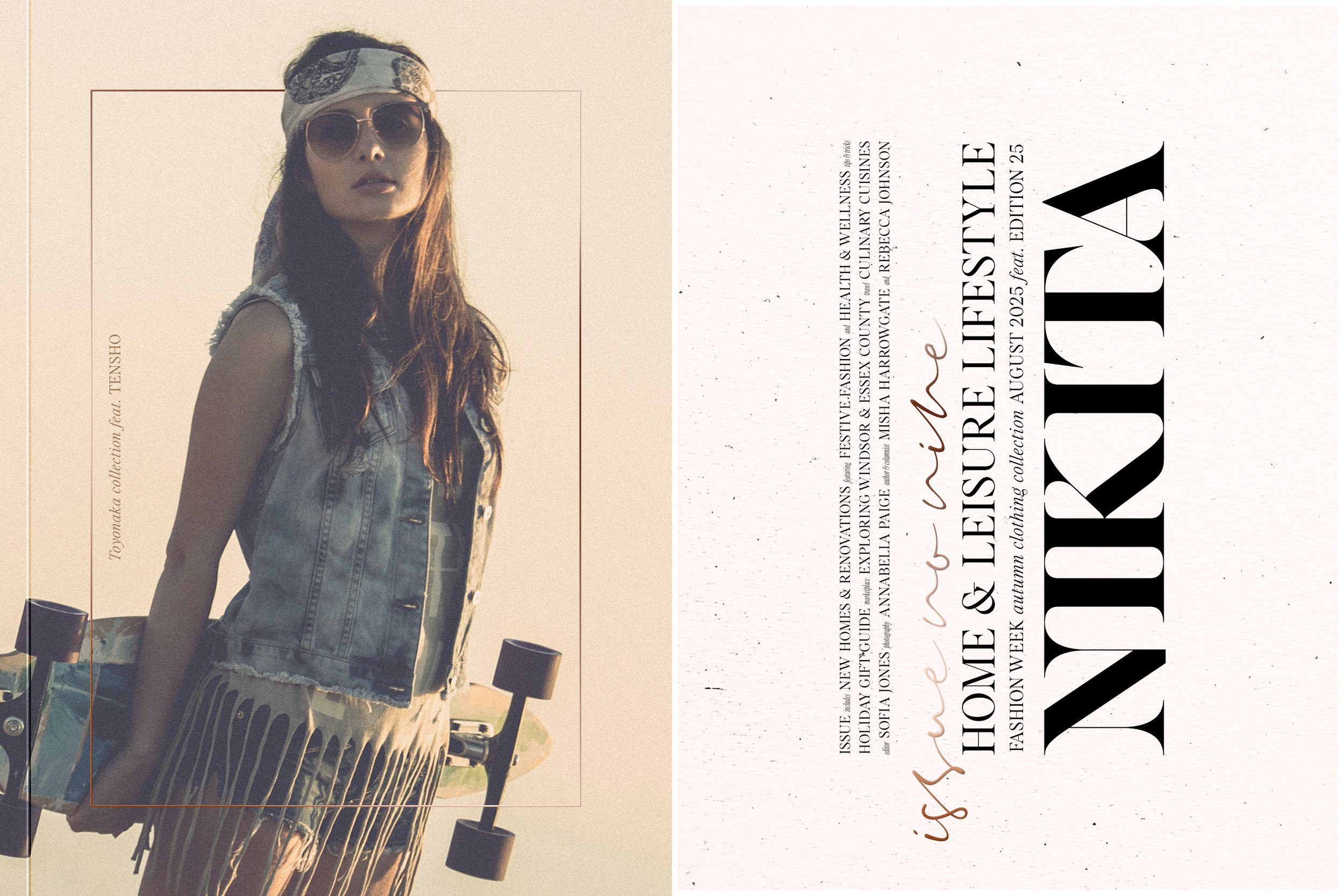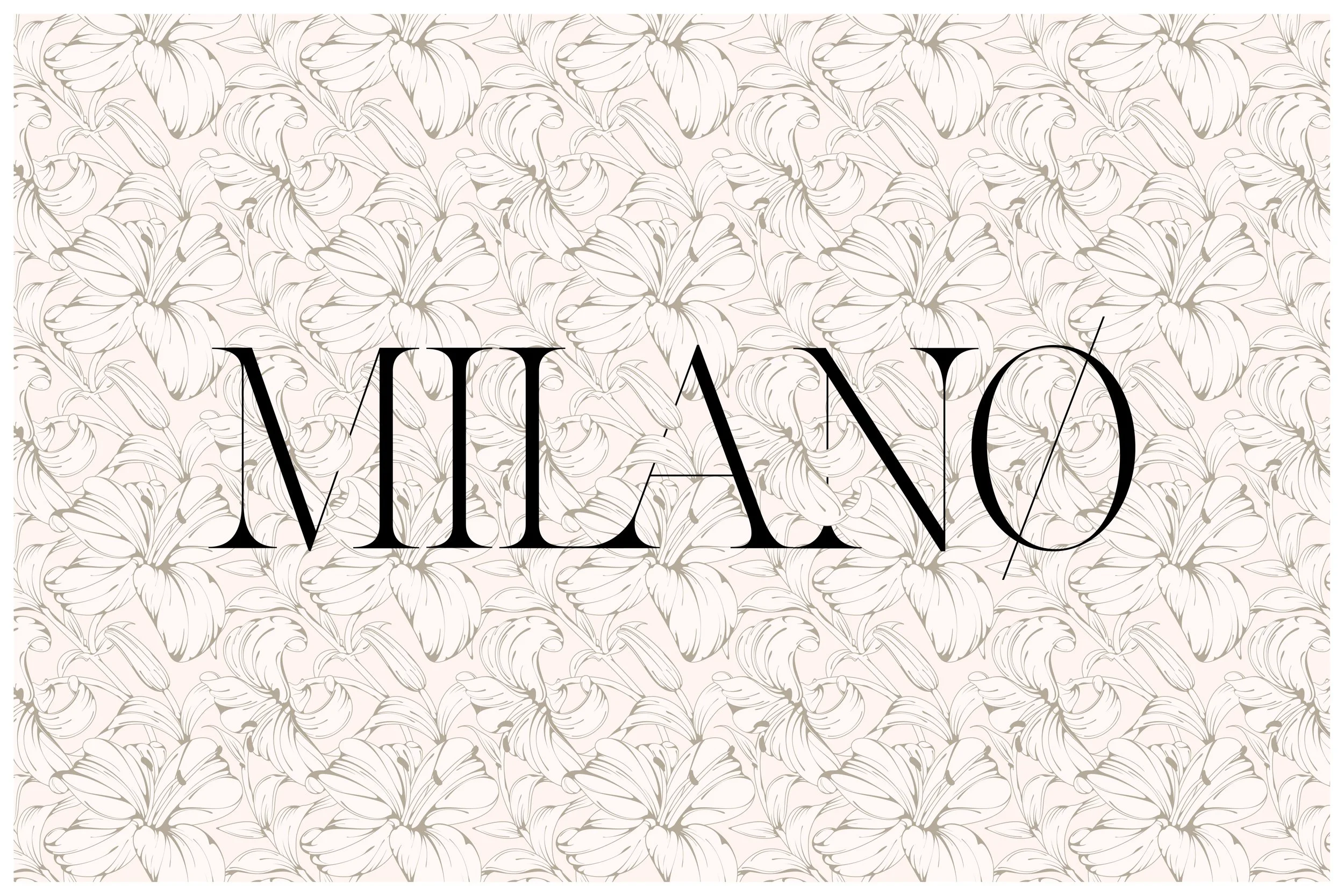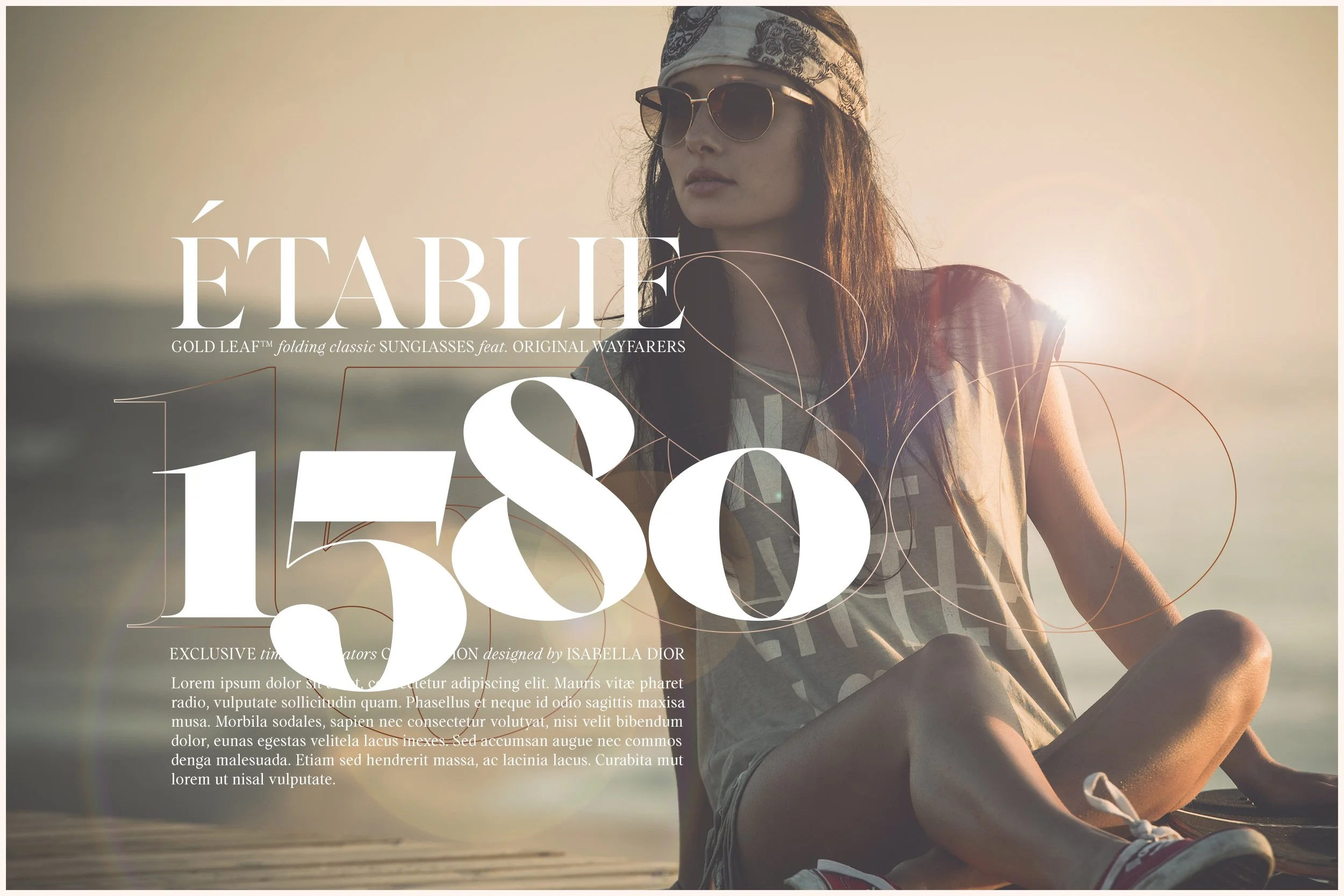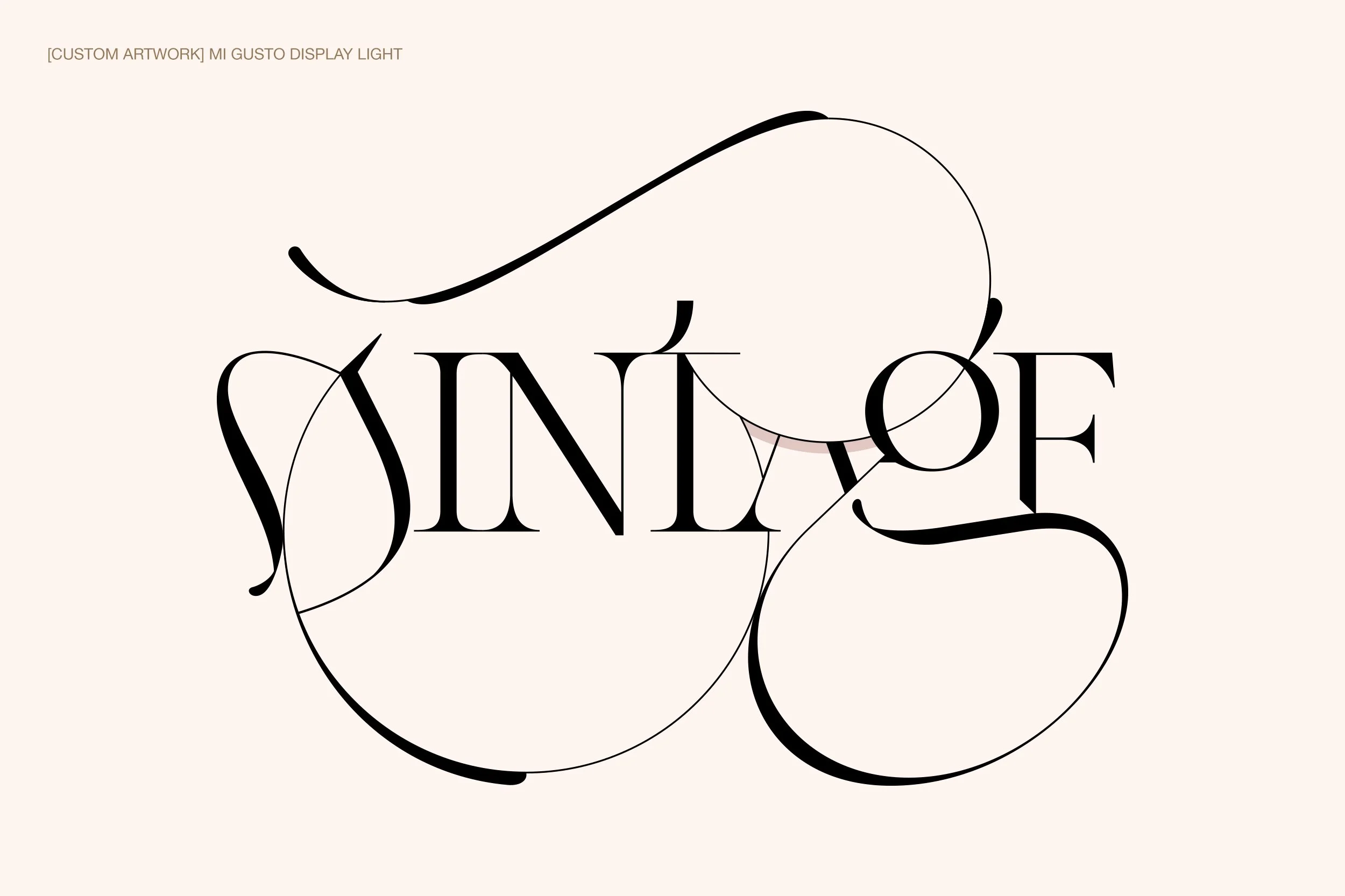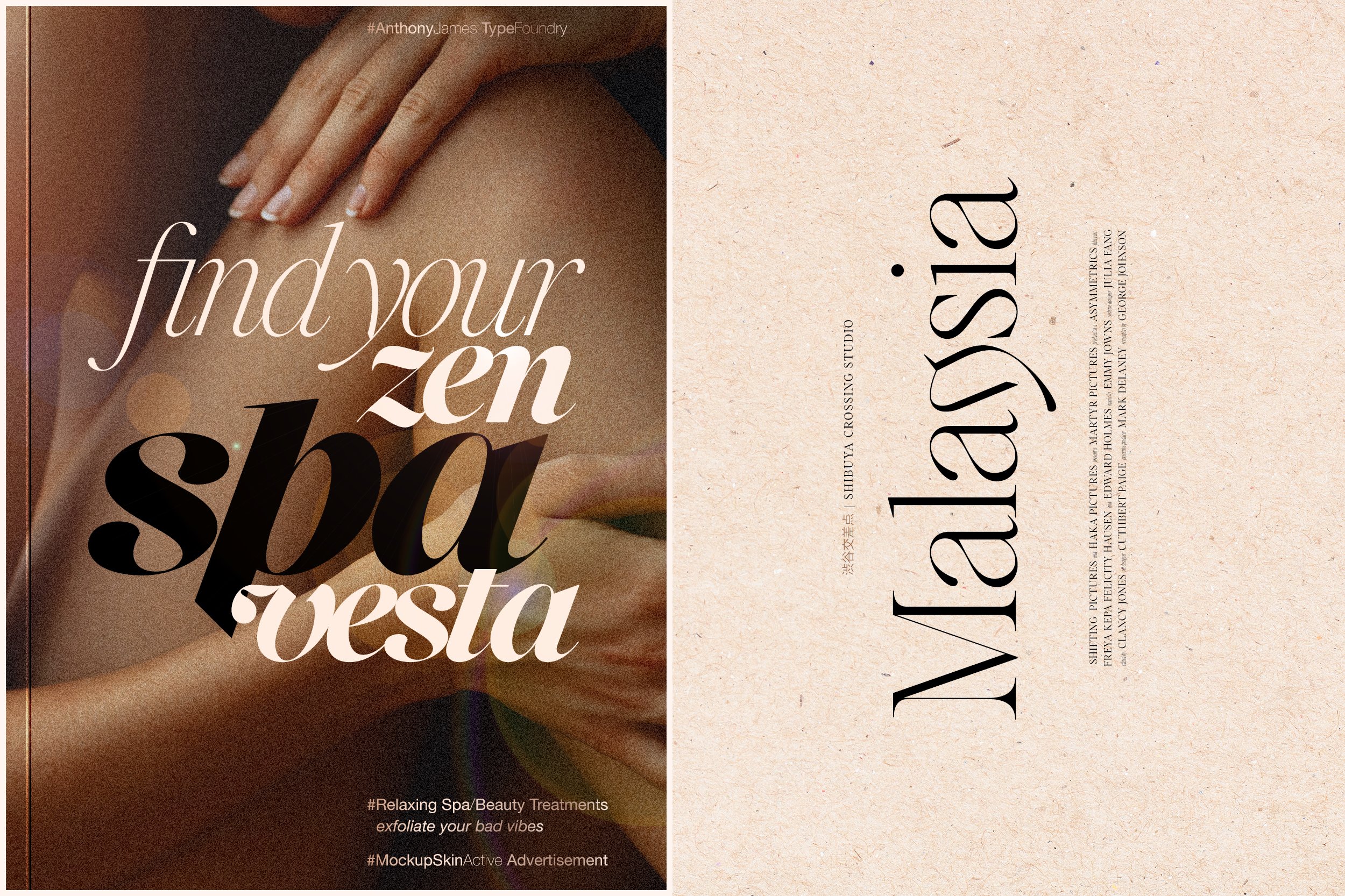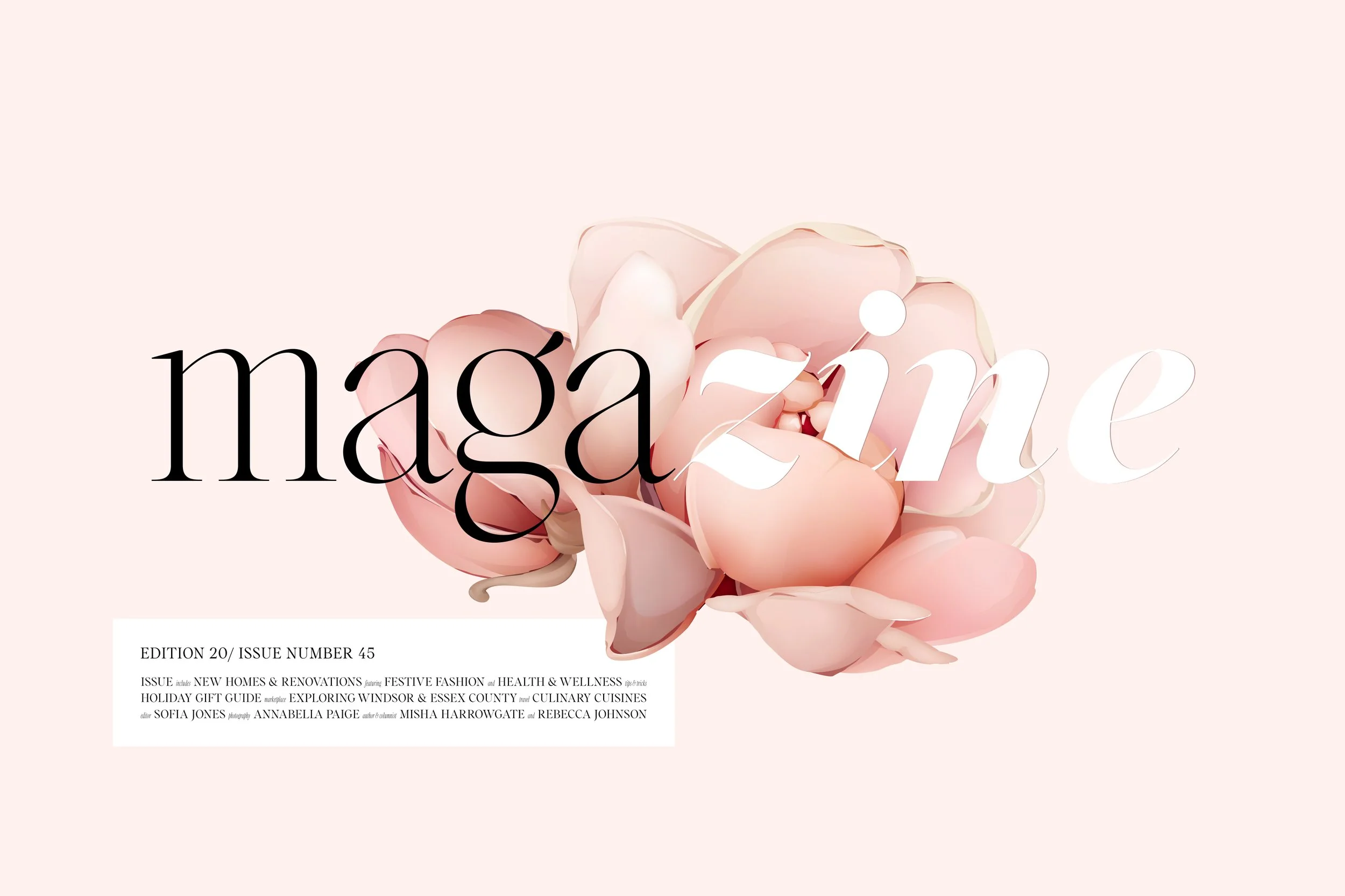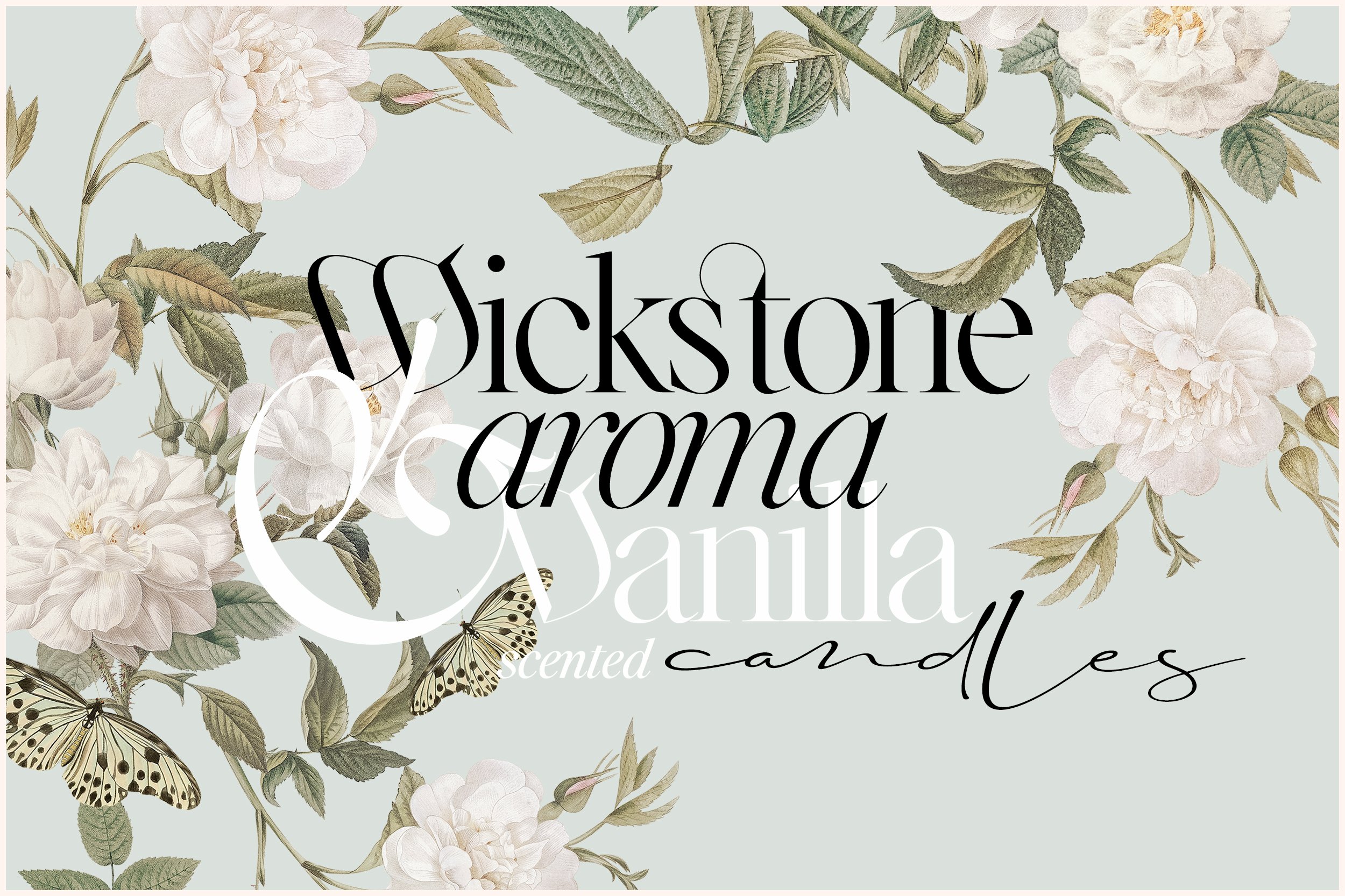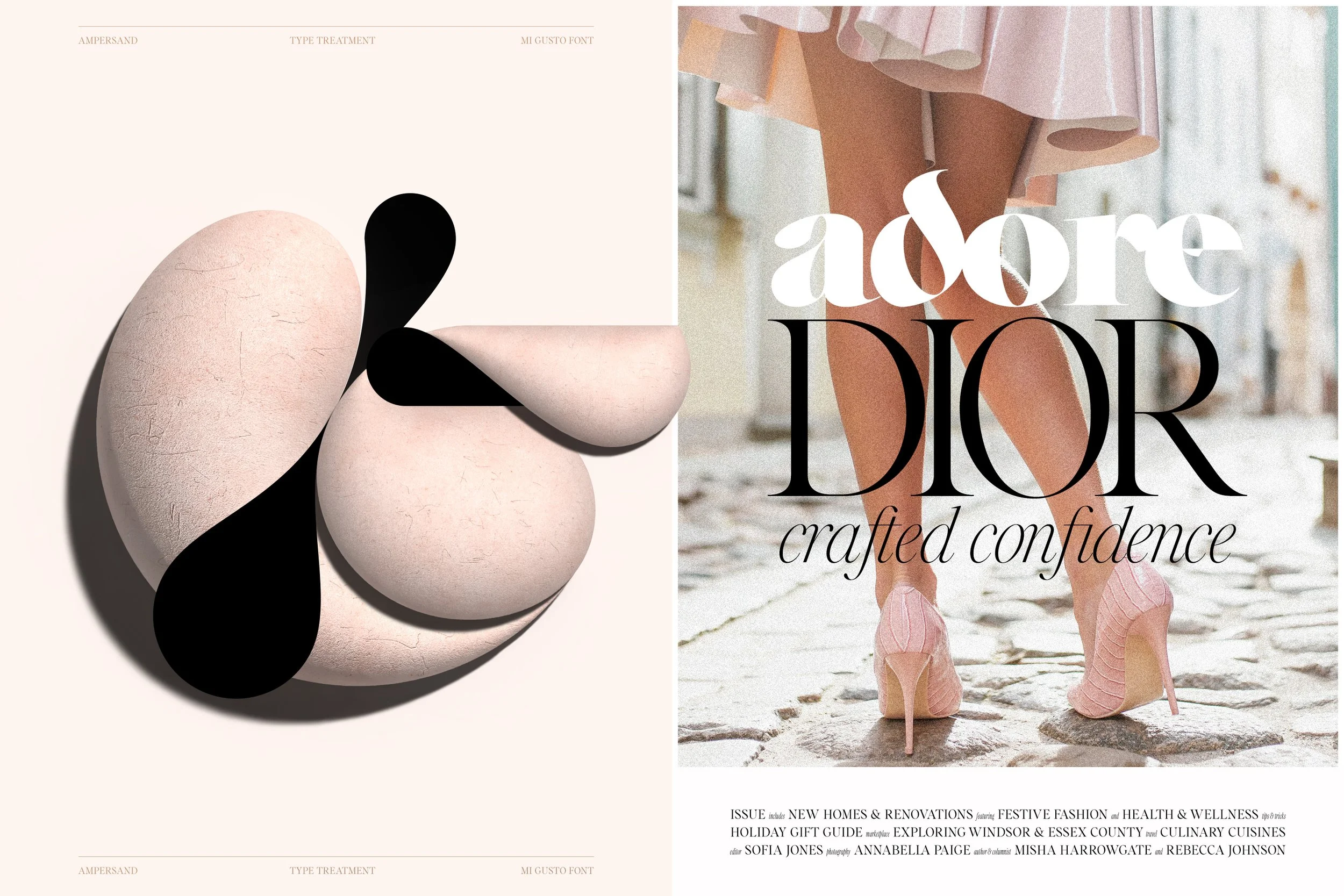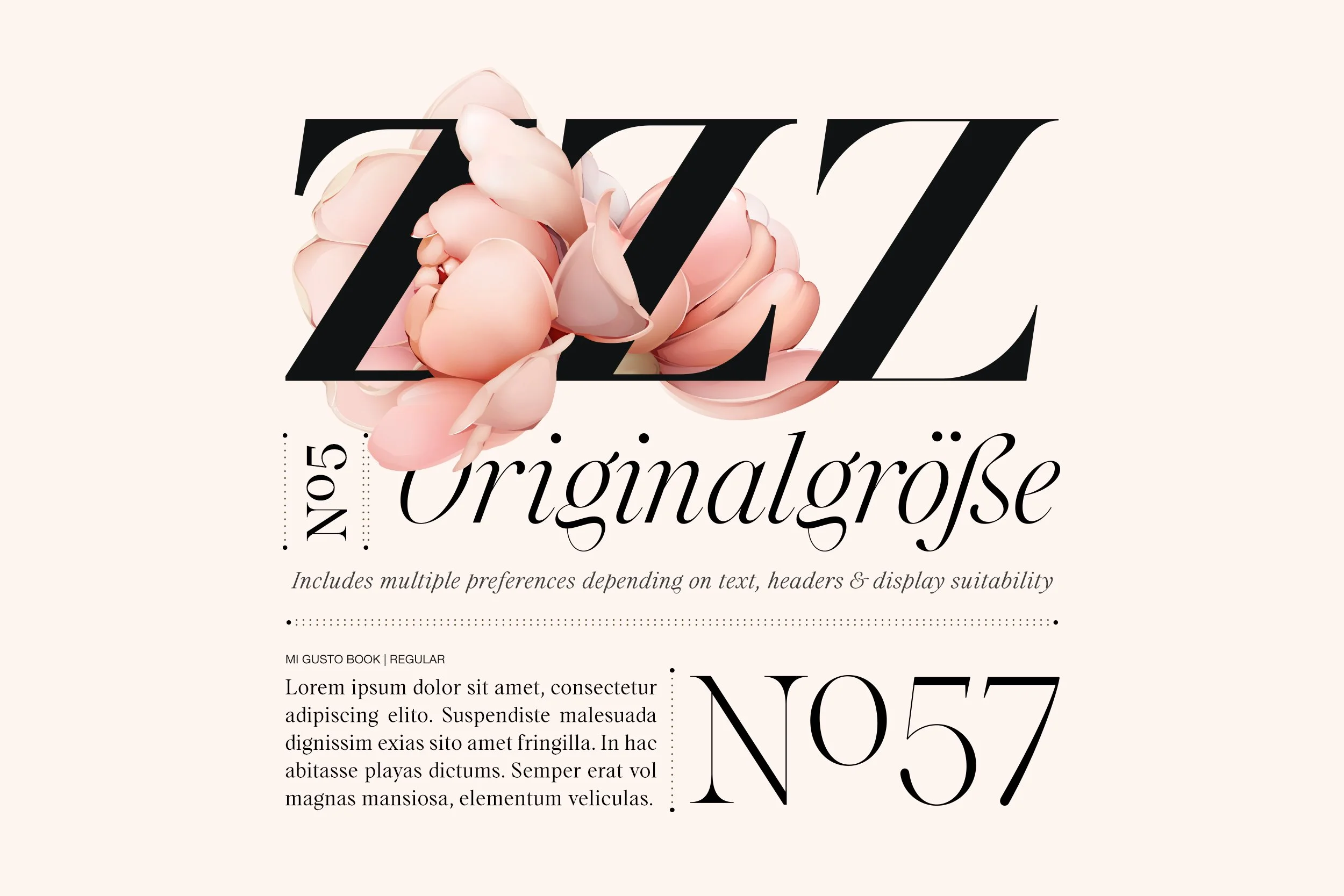
MI GUSTO | FONT FAMILY
54 FONTS | 9 WEIGHTS | 3 STYLES
Introducing our versatile serif family, crafted with elegant italics. Including a robust set of Opentype features, well balanced bezier curves & a perfect continuity of weights. Complementing - full small caps, allowing seemless integration.
54 weights (27 italics)
Regular / Book / Display
590+ Glyph Character Set incl. EXTENDED-LATIN
Opentype features
Small Capitals